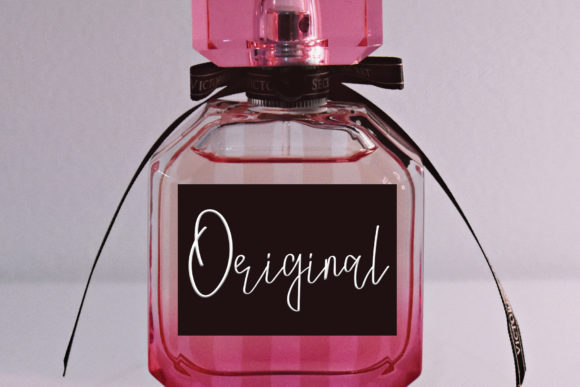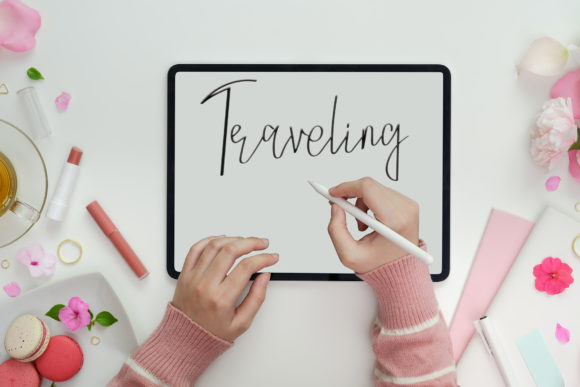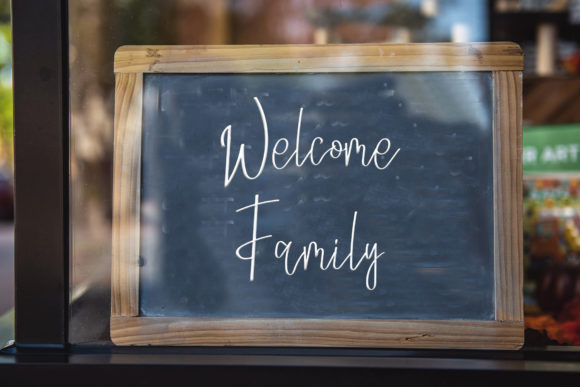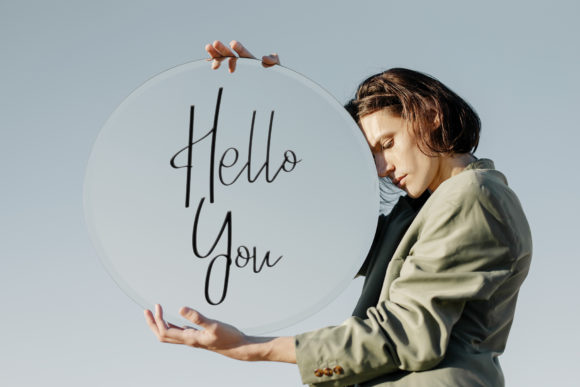
About Journalis Font
Journalis is a delicate and thin script font. This font is neatly crafted and highly detailed. Whatever the topic, this font will be a wonderful asset to your font library, as it has the potential to enhance any creation.